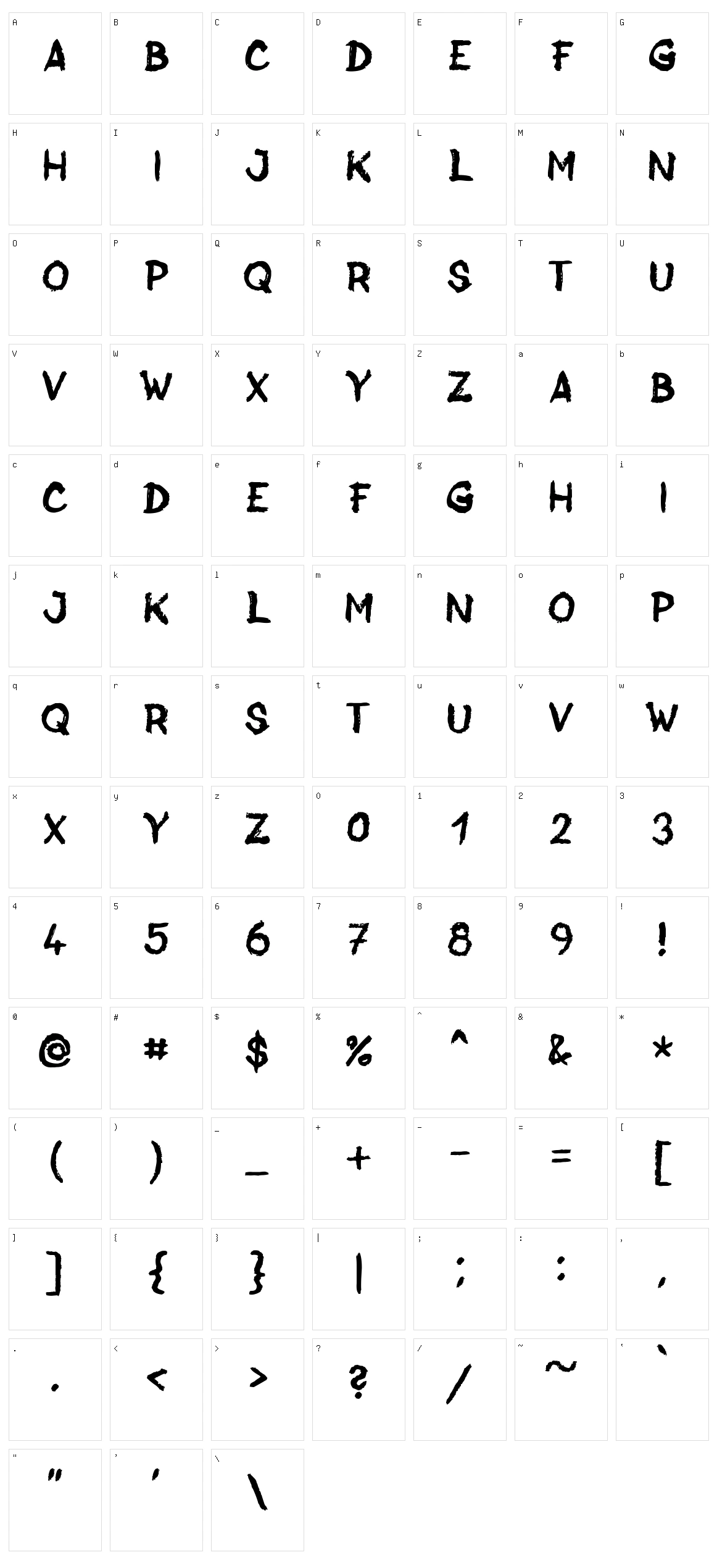
Jack Brusher
Designed by: V?t ÄŒond?k
Jack Brusher
by Vít Èondák
[ English Description ]
A rather rough font based on a sketch I made using a brush and watercolors.
Lower case are intentionally the same as upper case.
[ Èeský popis ]
Hrubozrný hùlkový font podle náèrtu, který jsem udìlal štìtcem a vodovými barvami.
Malá písmena jsou zámìrnì stejná jako velká.